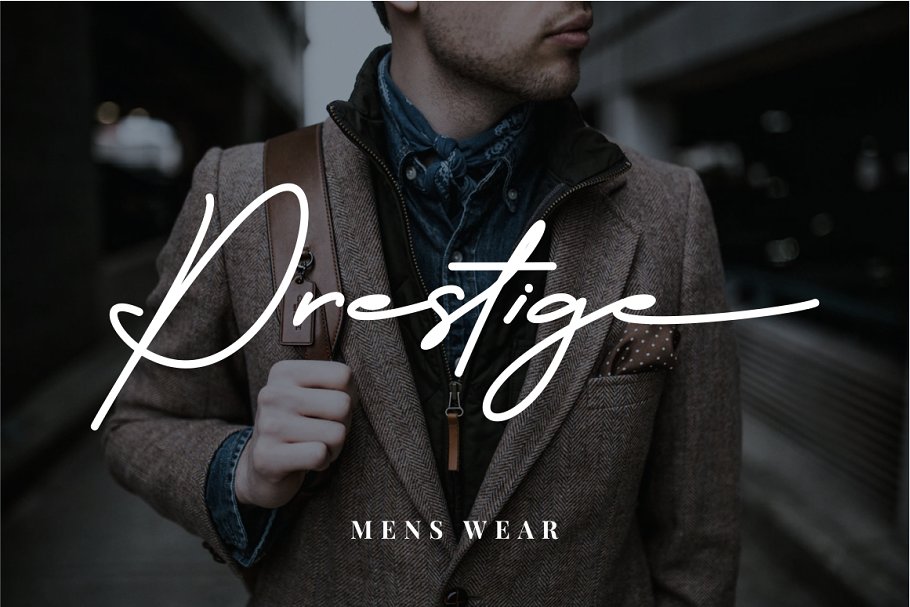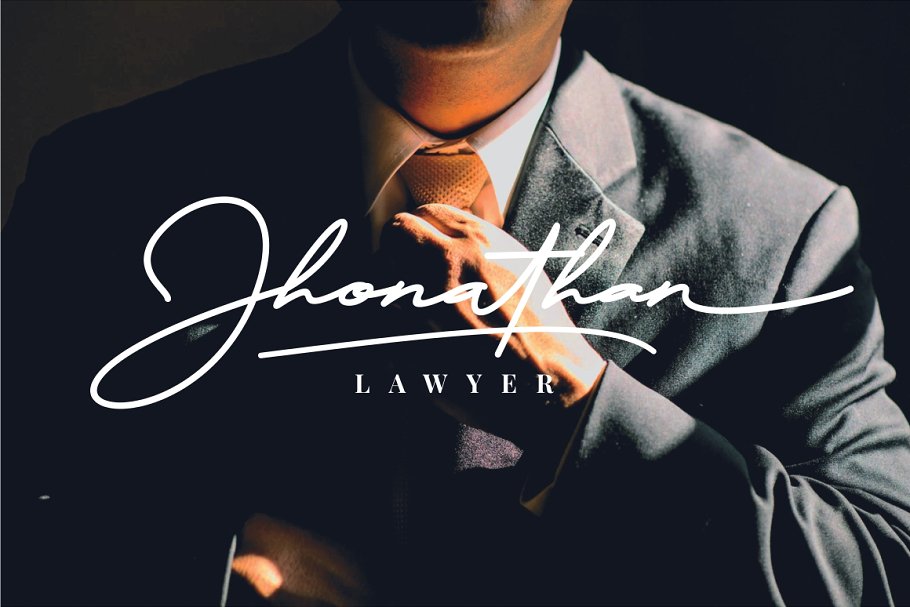
The Doctor Signature Font
The Doctor Font– is a must-have signature script that has a diverse set of alternates that will surely be used many times over in various projects in the future. The Doctor Signature Font is a handwritten signature with natural ,classy and stylish flow. The Doctor best uses for signature, heading, cover, branding, invitation, label, poster, logos, quotes, product packaging, header, merchandise, social media & greeting cards and many more.